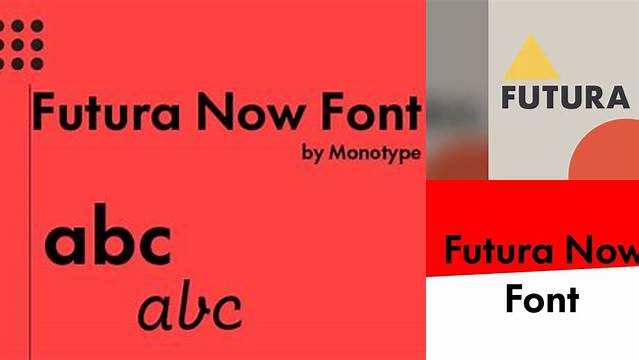
Hey design enthusiasts! Ever wondered about that sleek, geometric typeface you see everywhere? Chances are, you're thinking about Futura, a font that's become a cornerstone of modern design. And guess what? You can get your hands on a version of Futura Now Headline Condensed Medium Font for free! Yep, you read that right. This article is your ultimate guide to downloading this iconic font, understanding its nuances, and unleashing its potential in your projects. We'll dive deep into why Futura is so popular, where to download it safely, and how to use it effectively. So, let's get started and explore the world of Futura Now Headline Condensed Medium!
Futura Font: A Timeless Design Choice
Futura isn't just a font; it's a design statement. Created in 1927 by Paul Renner, this geometric sans-serif typeface quickly gained popularity for its clean lines, balanced proportions, and overall modern aesthetic. Guys, it's been around for nearly a century, and it's still going strong! Its simplicity and versatility have made it a go-to choice for a wide range of applications, from corporate branding to editorial design. What makes Futura so special? Its geometric construction, based on perfect circles, triangles, and squares, gives it a sense of order and harmony. This makes it incredibly readable, even at small sizes, and gives it a timeless quality that transcends trends. Think about some of the famous brands that use it – it screams sophistication and modernity. The beauty of Futura lies in its ability to be both bold and understated, making it suitable for a wide array of design projects. It's a workhorse font that consistently delivers a polished and professional look. Many designers find its neutrality an asset, allowing it to complement various design elements without overpowering them. From the clean lines to the balanced letterforms, Futura offers a sense of elegance and efficiency. It's a font that speaks volumes without saying too much.
History and Evolution of Futura
To truly appreciate Futura, it's essential to understand its history. Paul Renner, a German typographer, designed Futura with the goal of creating a typeface that reflected the aesthetics of the Bauhaus movement. The Bauhaus emphasized functionality and simplicity, and Futura embodies these principles perfectly. The font's design was based on geometric shapes, aiming to create a typeface that was both visually appealing and highly legible. It quickly gained popularity among designers who sought a modern and forward-thinking aesthetic. Futura's influence expanded rapidly, and its widespread adoption solidified its status as a design icon. During the mid-20th century, Futura became a favorite among advertisers and corporations. Its clean lines and modern feel made it an ideal choice for conveying a sense of professionalism and innovation. The versatility of Futura allowed it to be used in various applications, from headlines to body text, without losing its appeal. This versatility has contributed to its lasting legacy, making it one of the most recognized and beloved fonts in history. Over the years, Futura has undergone several revisions and adaptations. Different foundries have released their versions, leading to a variety of Futura styles and weights. These variations allow designers to tailor the font to meet their specific needs and preferences. The legacy of Futura is a testament to the power of good design and its ability to resonate with audiences across generations.
Why Designers Love Futura
Futura's popularity among designers stems from its unique blend of qualities. Its geometric design provides a clean and modern appearance, making it an excellent choice for contemporary projects. The font's versatility allows it to be used in a variety of contexts, from branding and advertising to editorial design and website design. The balance and harmony of its letterforms create a sense of visual order, ensuring that it is both readable and appealing. Designers also appreciate Futura's adaptability, as it works well with a wide range of color palettes, layouts, and design elements. The font's neutral nature means it doesn't distract from other design elements, allowing the overall message to shine through. Many designers see Futura as a reliable choice for projects where clarity and professionalism are paramount. Its simplicity and elegance make it suitable for high-end brands and everyday use. Futura has become synonymous with modern design, and its consistent popularity proves its staying power. Furthermore, Futura offers a wide range of weights and styles, providing designers with ample options to customize their designs. From bold headlines to subtle body text, Futura can adapt to almost any need. The font's clarity and legibility make it ideal for both print and digital media. Its ability to work well across various formats has only fueled its popularity, solidifying its place as a design icon.
Using Futura Now Headline Condensed Medium Effectively
Alright, you've got Futura Now Headline Condensed Medium downloaded – now what? This font, especially in its condensed and medium weight, is killer for headlines, subheadings, and short bursts of text where you want to make a statement. Think about it: its condensed form saves space, making it perfect for titles on posters, website headers, or anything where you want to pack a punch without taking up too much real estate. The medium weight offers great balance – it's not too heavy, not too light. It is easy to read, and draws the eye in. Keep in mind the context. Where are you using it? What's the overall vibe of your design? Futura works wonderfully for modern and minimalist designs. But it can also be combined with other fonts to create a more dynamic and interesting visual hierarchy. The key to using Futura effectively is to use it strategically. Don't overdo it! Too much Futura can become monotonous. Choose your weights and styles carefully, and make sure they complement the overall design.
Best Practices for Typography
Futura is a powerful font, but following some best practices will ensure you get the most out of it. The proper use of typography can significantly impact your design's success. It is essential to understand the fundamentals of typography to create visually appealing and effective designs. When you're using Futura, pay attention to kerning and leading. Kerning refers to the space between individual letters, and leading is the space between lines of text. Adjusting these elements will improve readability and create a more polished look. Experiment with different weights and styles to create visual hierarchy and guide the viewer's eye. For instance, you might use a bold weight for headlines and a regular weight for body text. Be mindful of the font size and how it works with other elements in your design. The proper size will enhance readability. Always consider the context of your design and the overall message you want to convey. Futura can be a great choice, but it may not be appropriate for all projects. Always choose your fonts to complement the other elements of your design. Consider using a combination of fonts to create a more dynamic and interesting design. Pair Futura with a contrasting font for a balanced and engaging look.
Pairing Futura with Other Fonts
One of the awesome things about Futura is how well it plays with other fonts. Guys, it's like a great supporting actor – it makes everyone else look good! When pairing Futura, you want to choose fonts that offer contrast, creating visual interest without clashing. For body text, consider a serif font like Garamond or Georgia; the serifs provide a good contrast to Futura's clean lines, making for great readability. Another option is a sans-serif font with a different personality, maybe something with a bit more character. Think about pairing Futura with a more playful or handwritten font for a touch of personality. Remember that the goal is to create a harmonious design, so experiment to find the best combinations. The goal is to enhance the overall design and improve readability. The use of contrasting fonts can add visual interest to your designs and make them more engaging. Choose your fonts based on the project's needs and overall tone. To create a visually pleasing design, try pairing Futura with a font that is different in terms of style or weight. When you are pairing Futura with other fonts, ensure that the fonts complement each other without competing for attention.
Where Futura Shines: Ideal Uses and Applications
Futura shines in the right use. Use it for headlines and subheadings. Create an engaging design. The font makes the design look modern. The font can be used for logos. The font's design is simple and clear. Use the font for various projects. The font enhances a modern design. The font can be the best choice for your design.